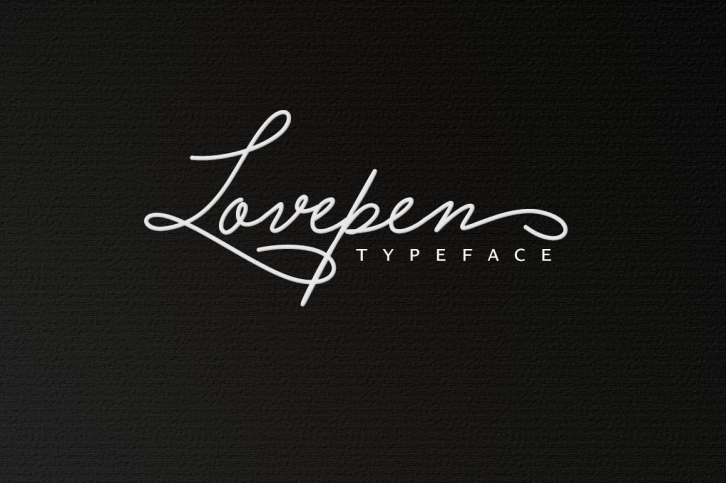
Lovepen is a handwriting font, strokes smooth, suitable for signature and logo etc..
It also contains ligatures and contextual alternates,stylistic alternates, hope you like it.
Correct the letters 't' and some ligatures.